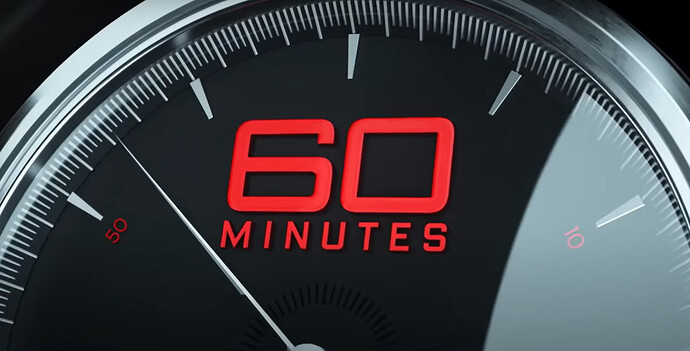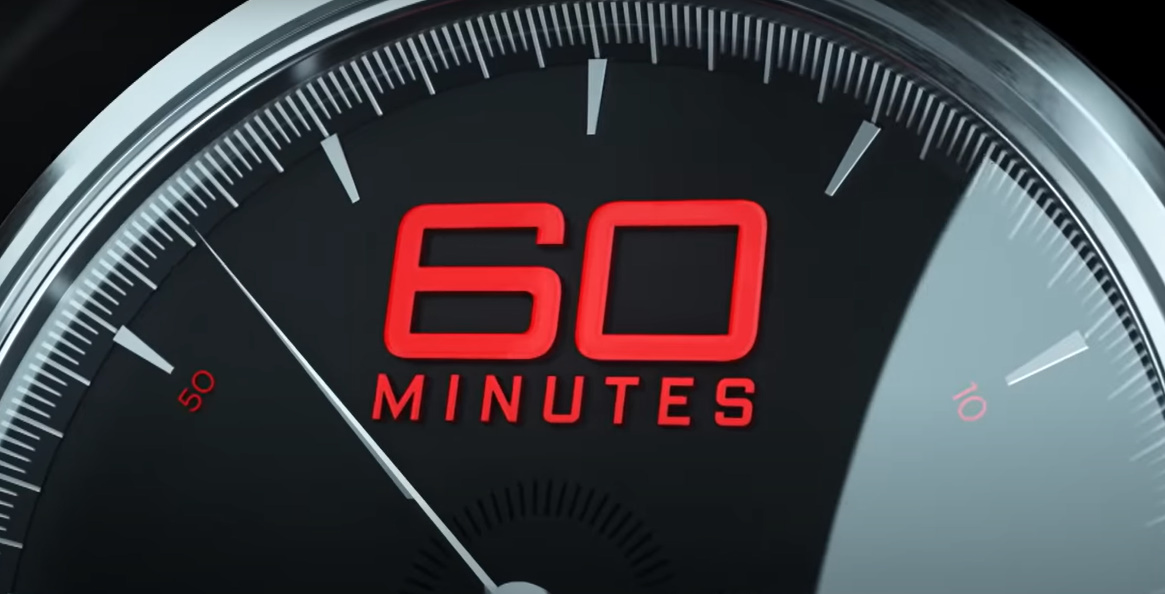
The original 60 Minutes on CBS used Microgramma. This logo resembles it but isn’t Microgramma. It also resembles Bank Gothic, but isn’t that, either. I haven’t tracked down what it is yet.